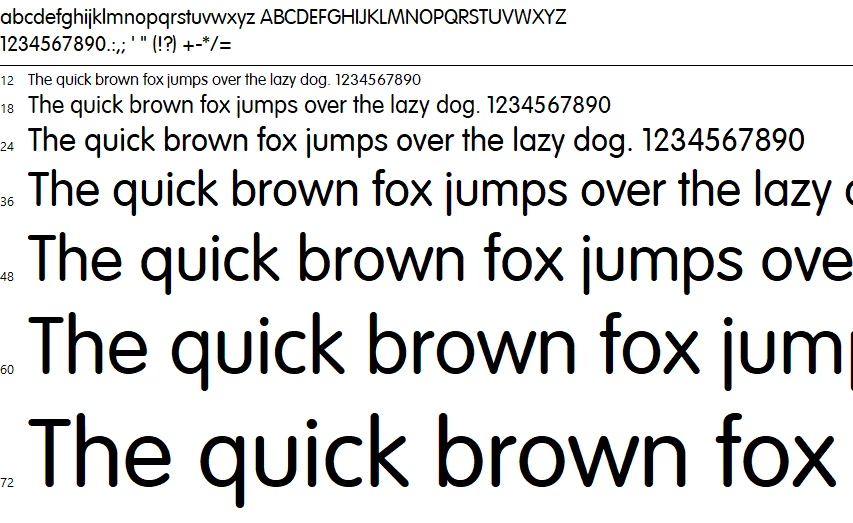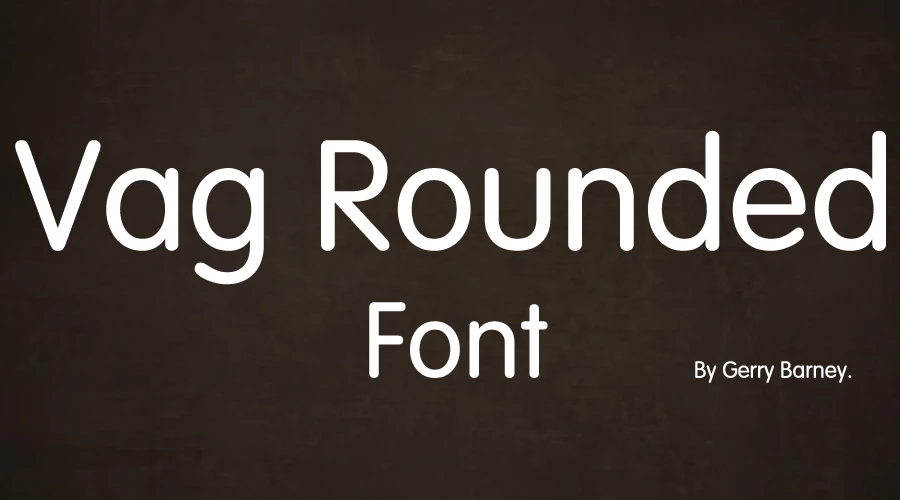
VAG Rounded is a geometric sans-serif typeface designed by Gerry Barney. This font was designed as a corporate typographic voice for the Volkswagen AG. Volkswagen AG known internationally as the Volkswagen Group, is a German multinational automotive manufacturing company. There are many similarities between Futura and Vag Rounded, but it features rounded terminals on all strokes.
Originally commissioned in 1979 as a new corporate typeface for Volkswagen AG, but Volkswagen stopped using the VAG Rounded family in the early 1990s. With 4 weights and a rounded design, Vag Rounded font is very much eye-catching and elegant.
Beautifully designed Vag Rounded Font is quite appealing for any kind of designing platform. Available in four weights—from thin to black the VAG Rounded family is an apt choice for logo design, identity systems, or any application where a typographic warmth is desired.
- Designing: This font is useful for designing. Vag Rounded will work great in brochures, banners, posters, book covers, high fashion, greeting cards, and many more.
- Logos: You can design your logos with it.
- Websites: I have seen various websites use this font.
- Official Work: You can use his font also for official work. You can use it in official documents and printing purposes.
- Title or Headlines: Vag Rounded is suitable for title and headline.
| Name | Vag Rounded Font. |
| Style | Geometric sans-serif. |
| Designer | Gerry Barney. |
Font Family
- VAG Rounded Thin.
- VAG Rounded Light.
- VAG Rounded Bold.
- VAG Rounded Black.
What type of font is Vag Rounded Font?
Ans: VAG Rounded is a geometric sans-serif typeface that was designed as a corporate typographic voice for the Volkswagen AG.